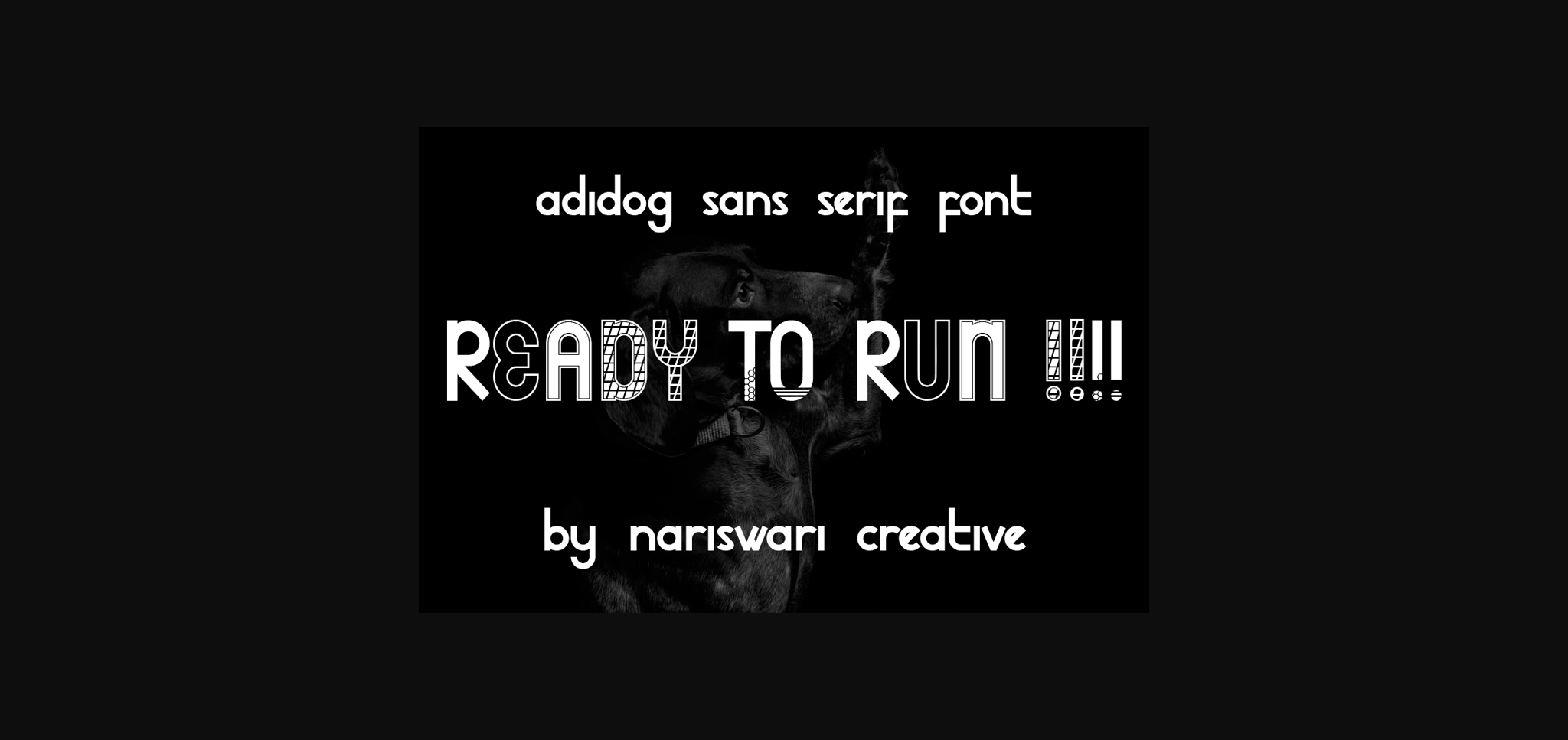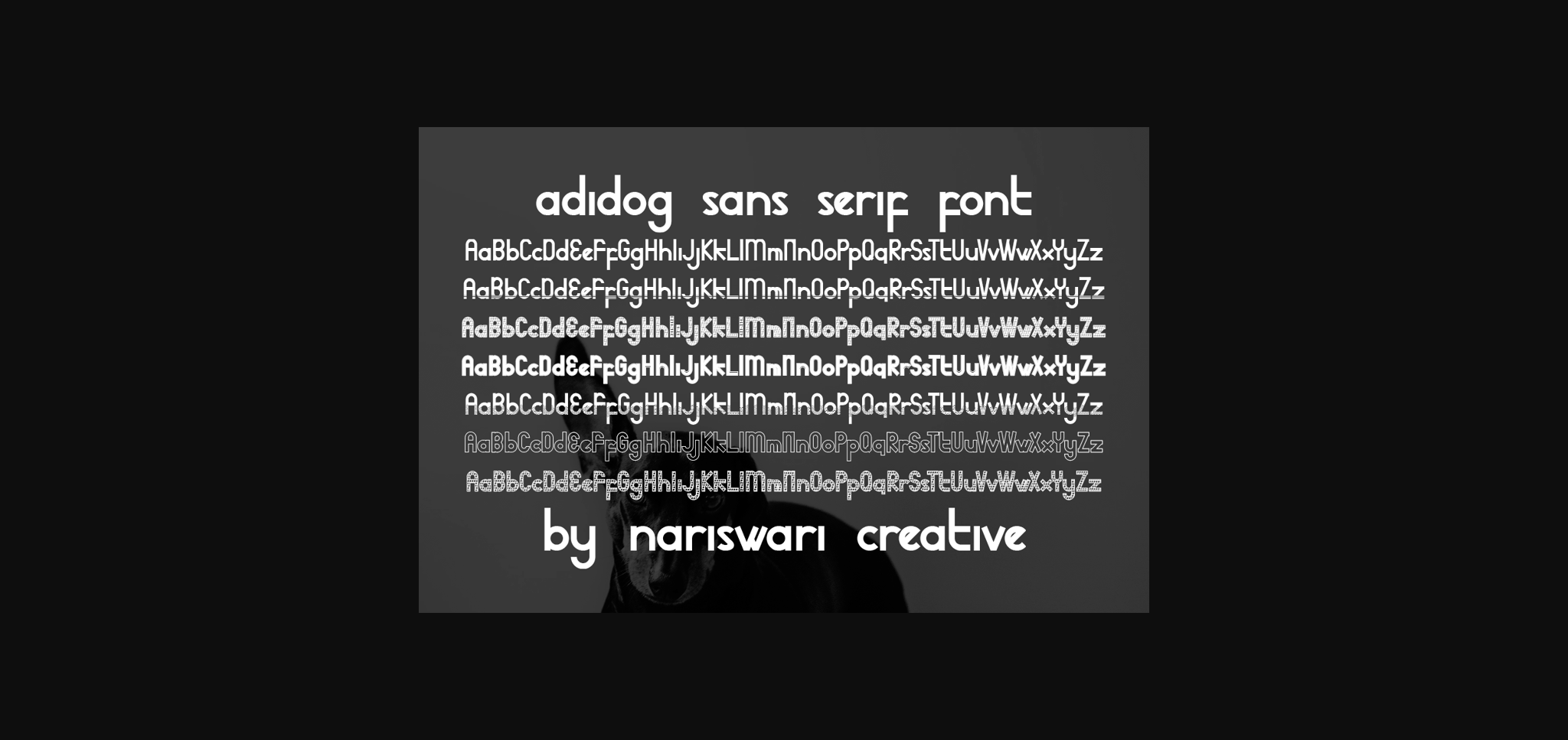
HomeSans Serif FontsAdidog Font Sans Serif Fonts Adidog Font FacebookXPinterestWhatsApp 1 of 4 ... Adidog Font Poster 2... Adidog Font Poster 3... Adidog Font Poster 4... About Adidog Font Adidog is a minimal and neat sans serif font. It can easily be matched to an incredibly large set of projects, so add it to your creative ideas and notice how it makes them stand out! DOWNLOAD NOW People also explored Gropo Font Backscatter Font Hanatone Shu Font Bright Sunkiss Font Acmedia Font Rostack Font Jelly Pie Font Strange Dreams Font Hibis Font 304 0 TagsAdidogAdidog Font Previous articleHope FontNext articleBadjang Font LEAVE A REPLY Cancel reply Comment: Please enter your comment! Name:* Please enter your name here Email:* You have entered an incorrect email address! Please enter your email address here Website: Save my name, email, and website in this browser for the next time I comment. Personal Use Free Bestlife Personal Use Free Read more about this font Underwood Champion Personal Use Free Read more about this font Starry Cakes Personal Use Free Read more about this font Green Fuz Personal Use Free Read more about this font BLOG Free Fonts Risk: Why Free Fonts Can Be Dangerous for Designers Free Fonts Risk: Why Free Fonts Can Be Dangerous for Designers Using free fonts is a common practice in web and graphic design. However, the... Modern Sans-Serif Fonts That Brands Love in 2025 Transform Your Website: Elevate Your Typography with 7 Best Web Font Generators How to Install and Use Fonts on Windows, macOS, and Web Projects